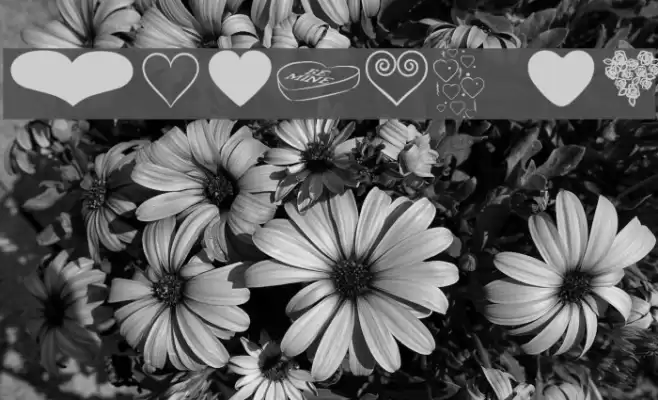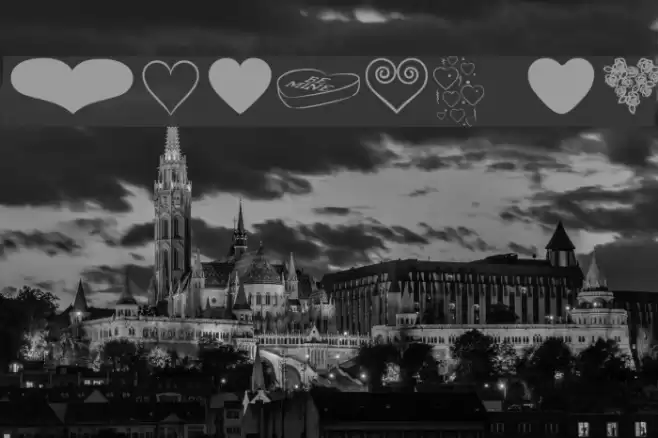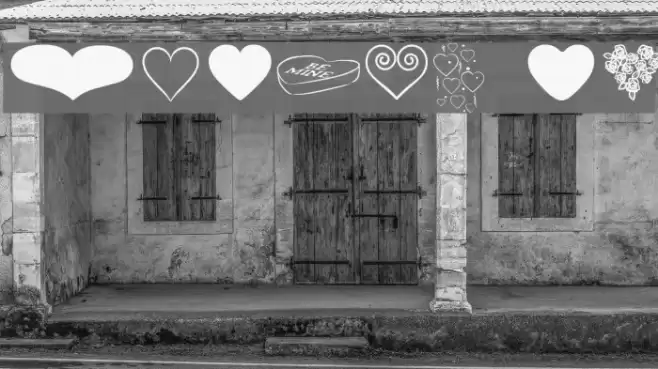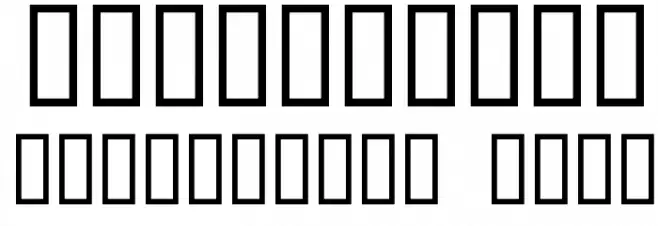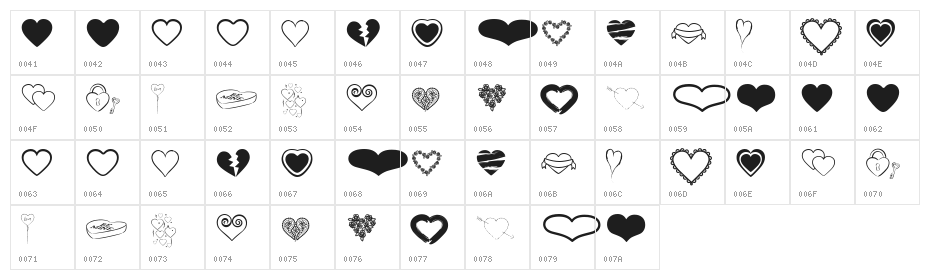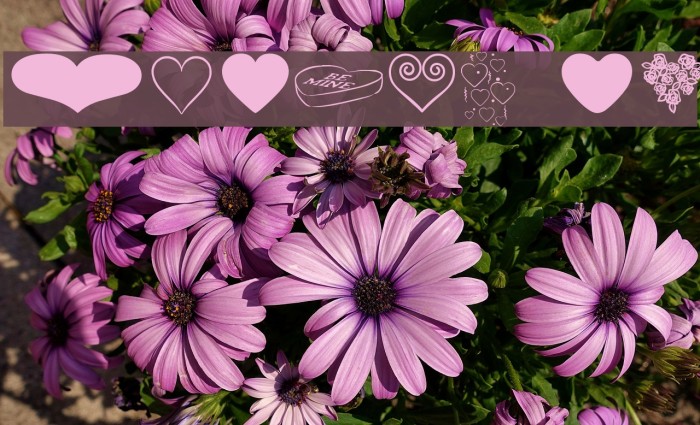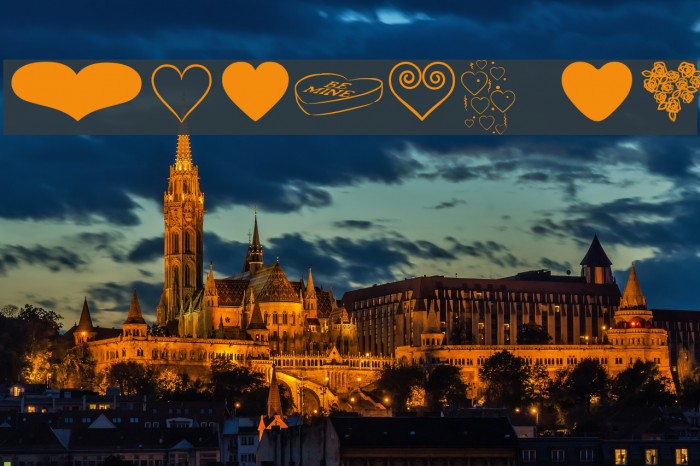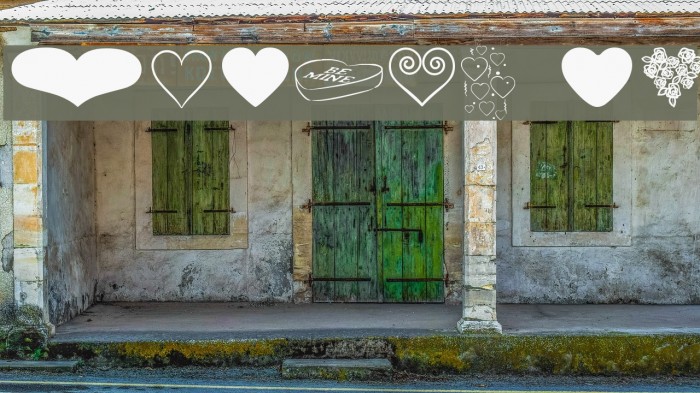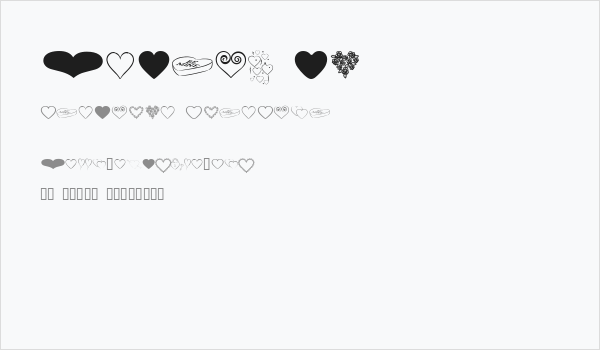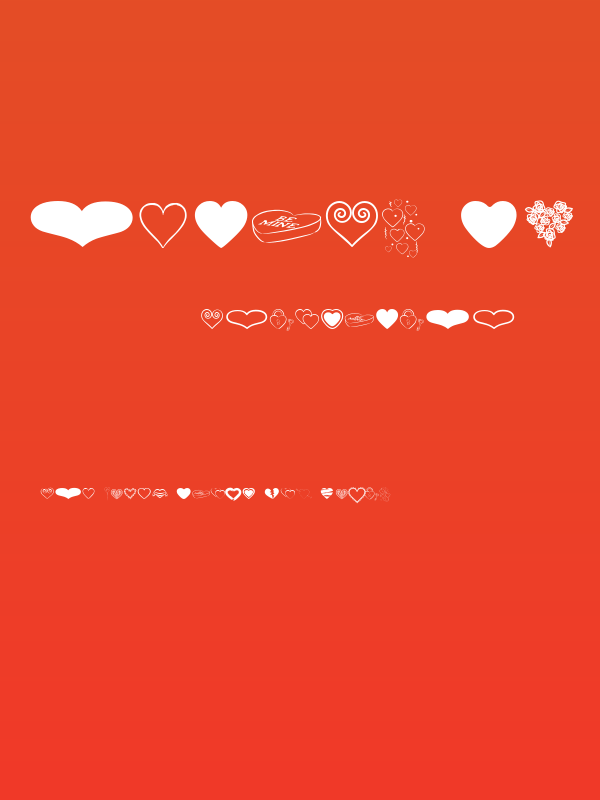
Hearts BV Font
Hearts BV Description
This is not a valid font. The image contains a series of heart shapes and decorative symbols rather than a traditional alphabetic or numeric font set. These elements are more suited for decorative purposes rather than textual representation. The symbols vary in style, including solid, outlined, and patterned hearts, some with additional embellishments like keys or floral designs. These elements are not suitable for standard text usage.
The image contains decorative heart symbols, not a valid font from Dingbats fonts.
- Proposed Projects: These symbols could be used for decorative design projects, such as greeting cards, invitations, or digital artwork.
- Use Case: Decorative elements for design projects.